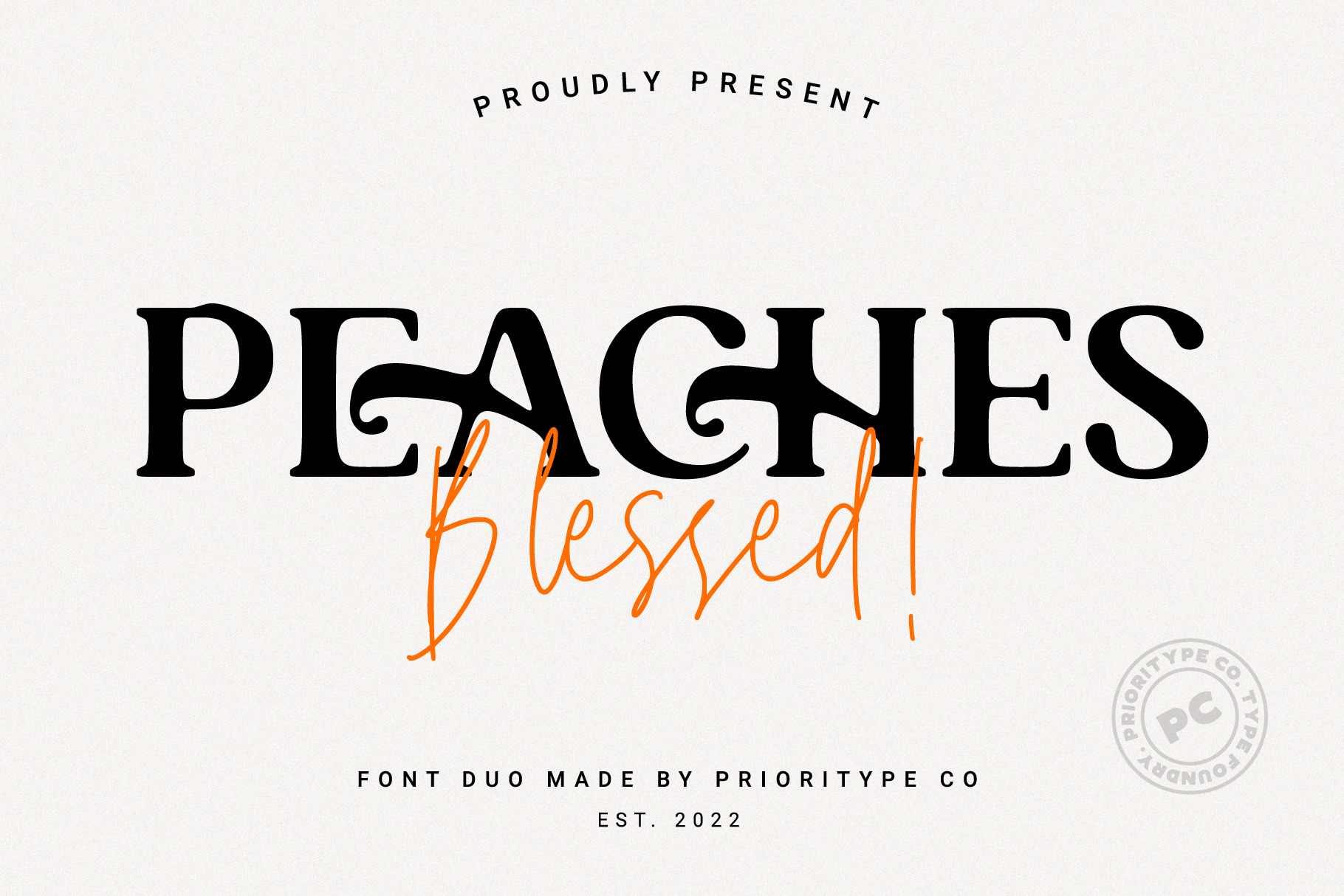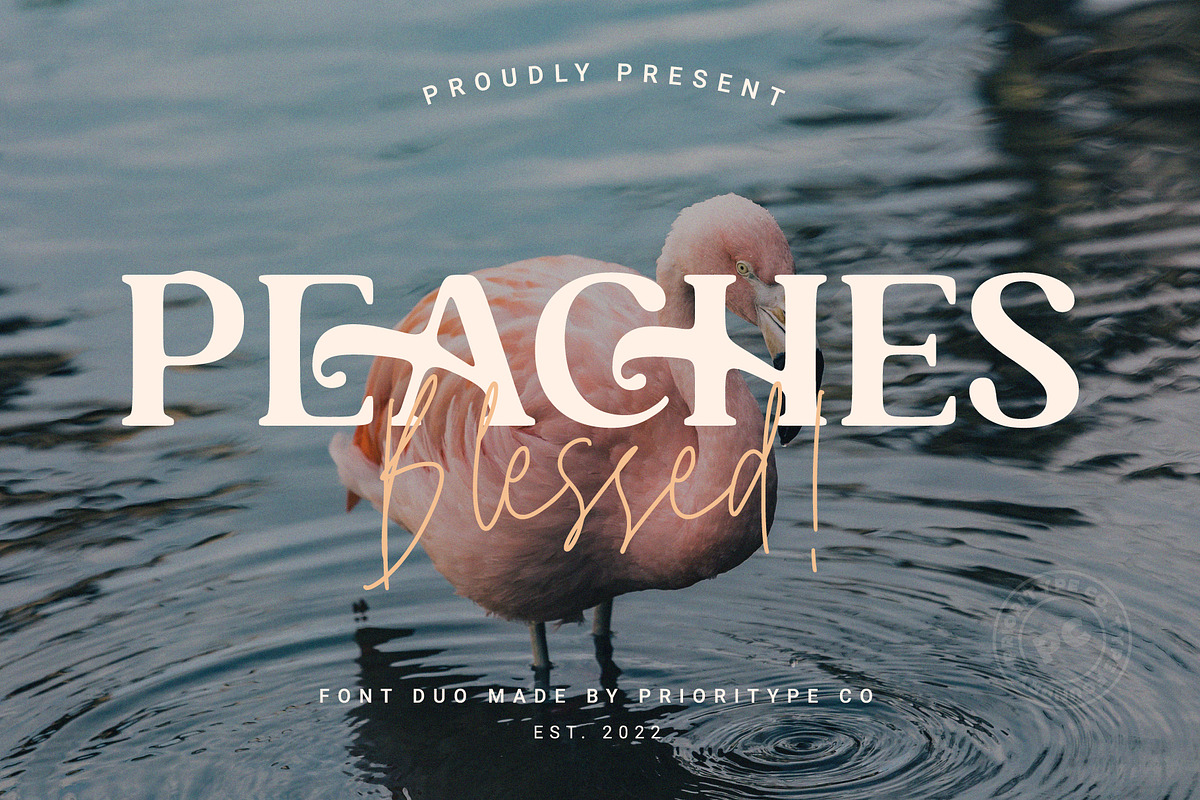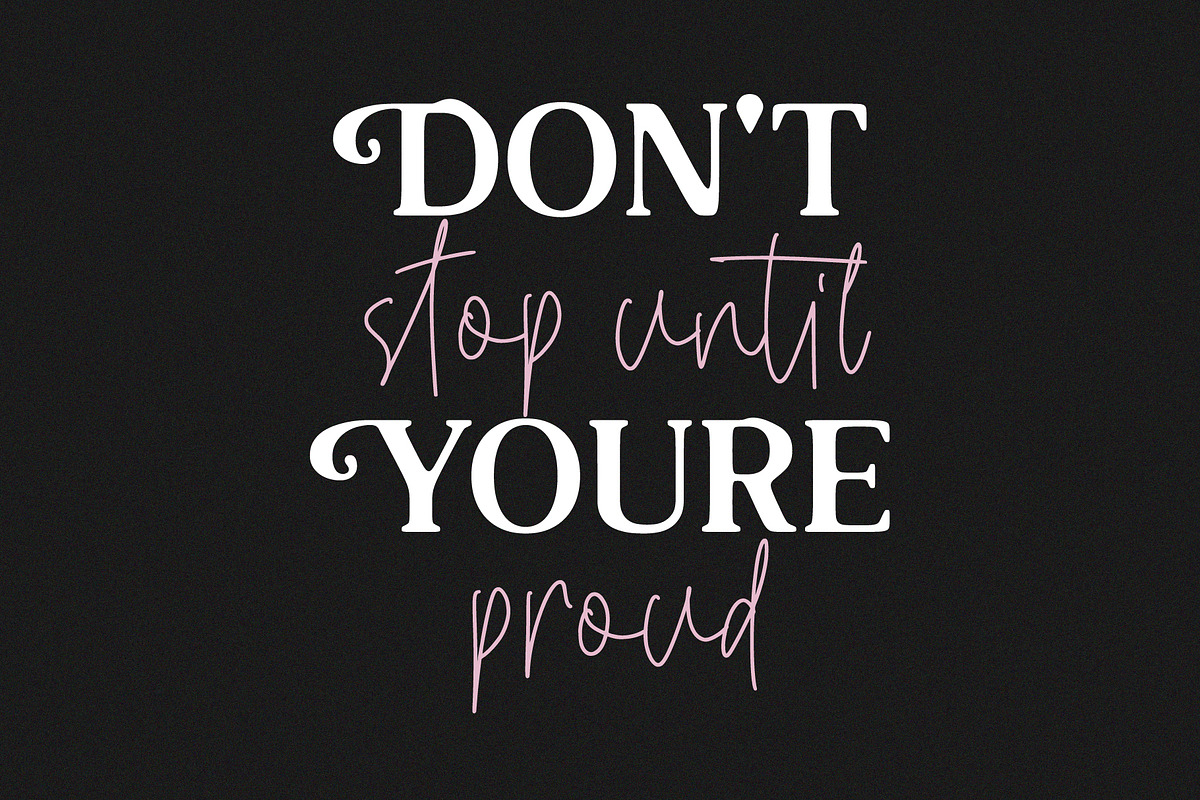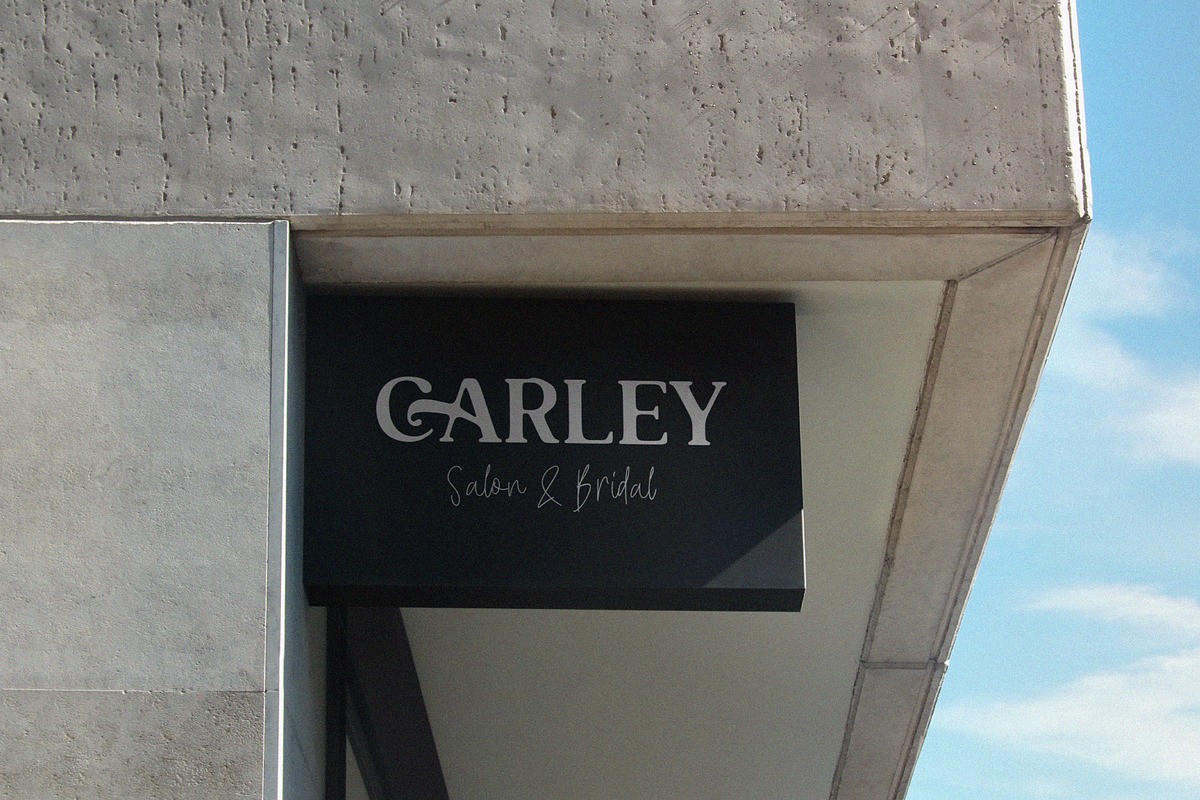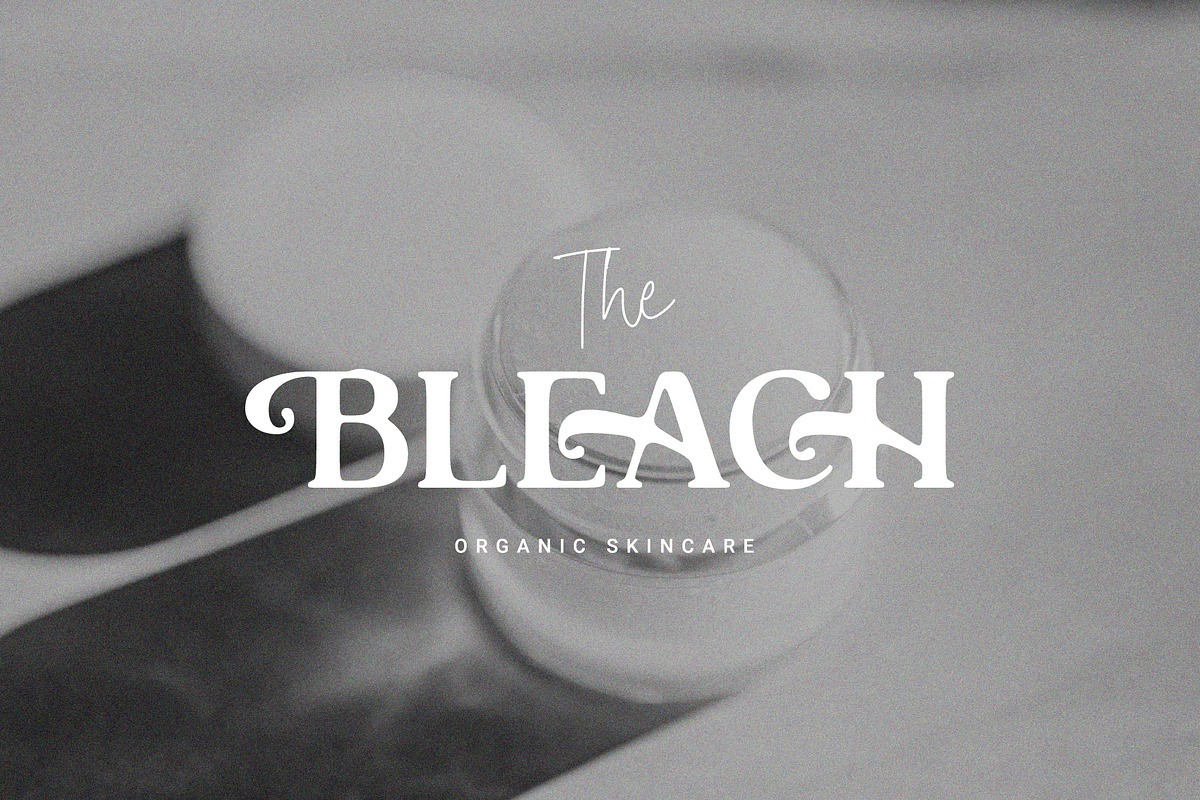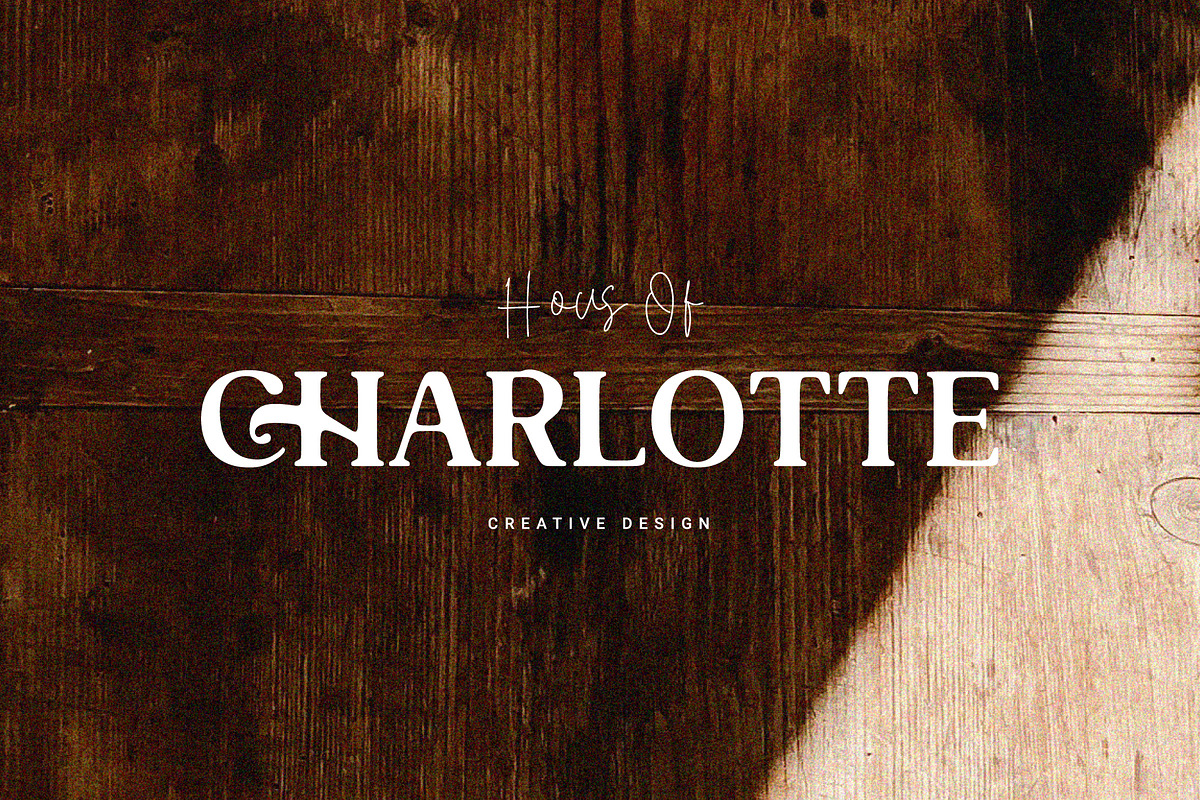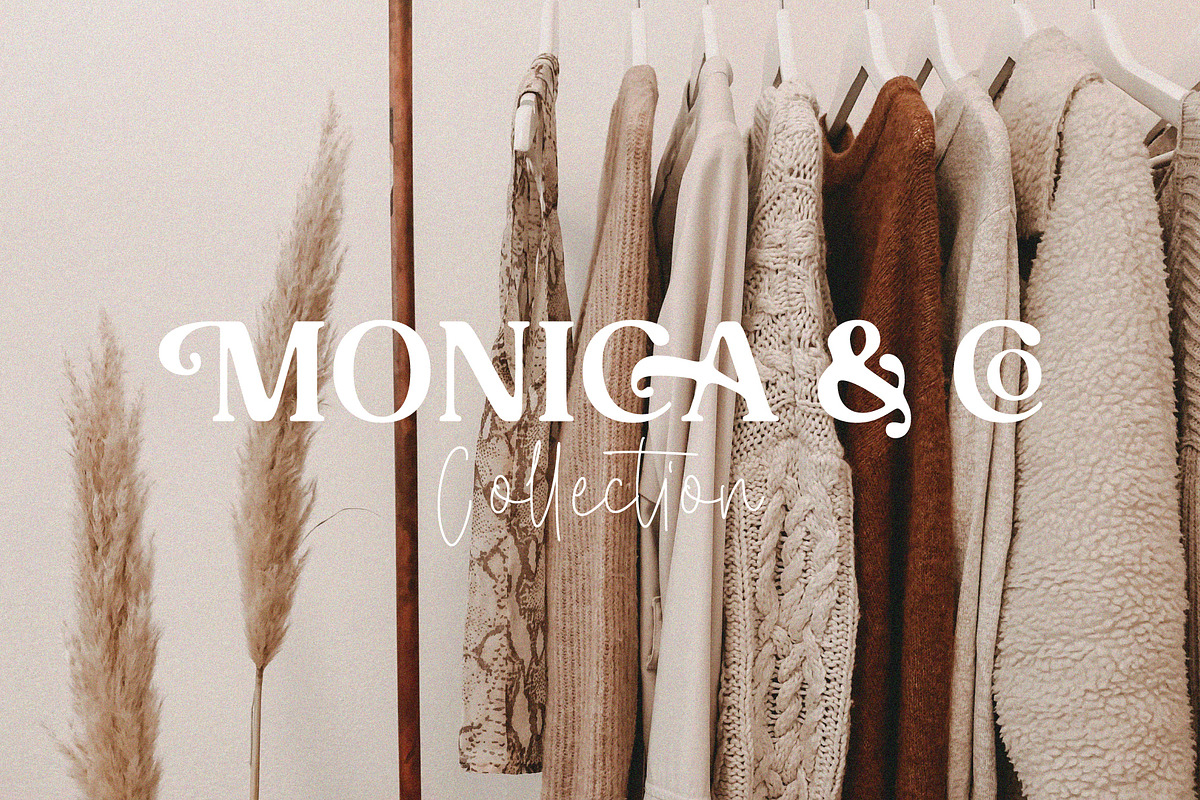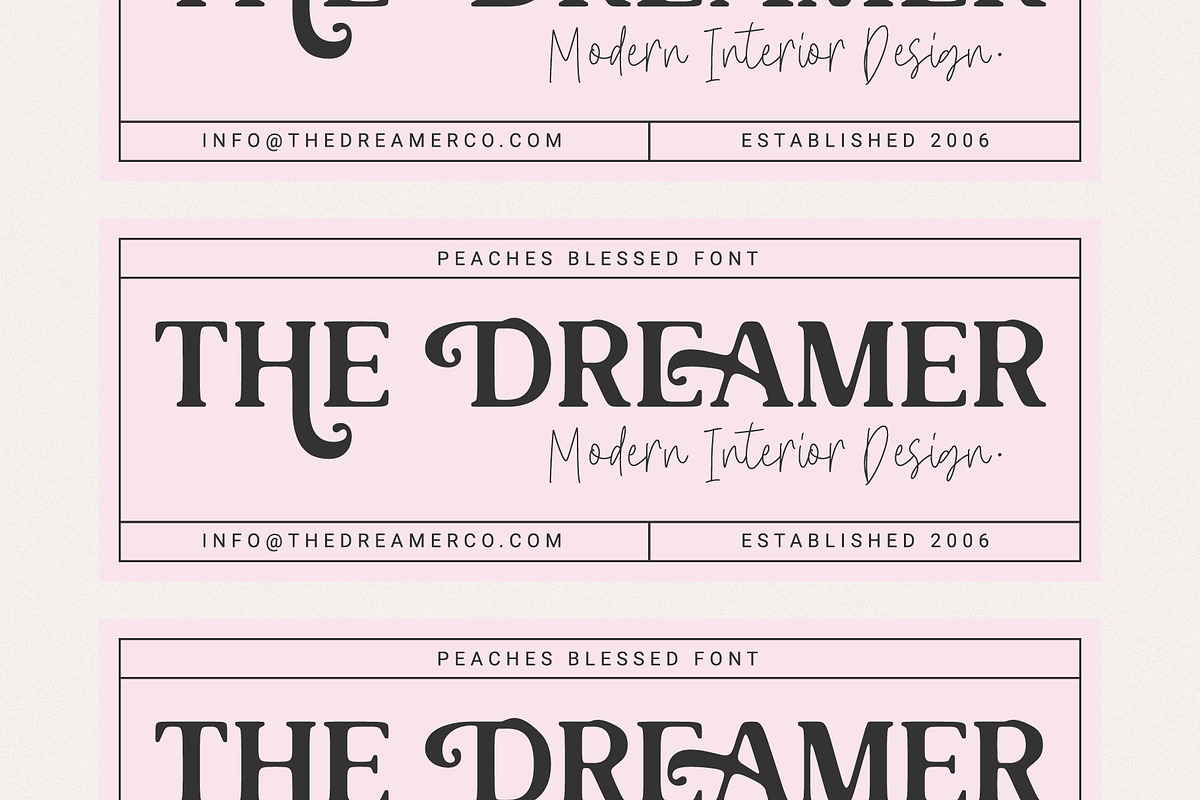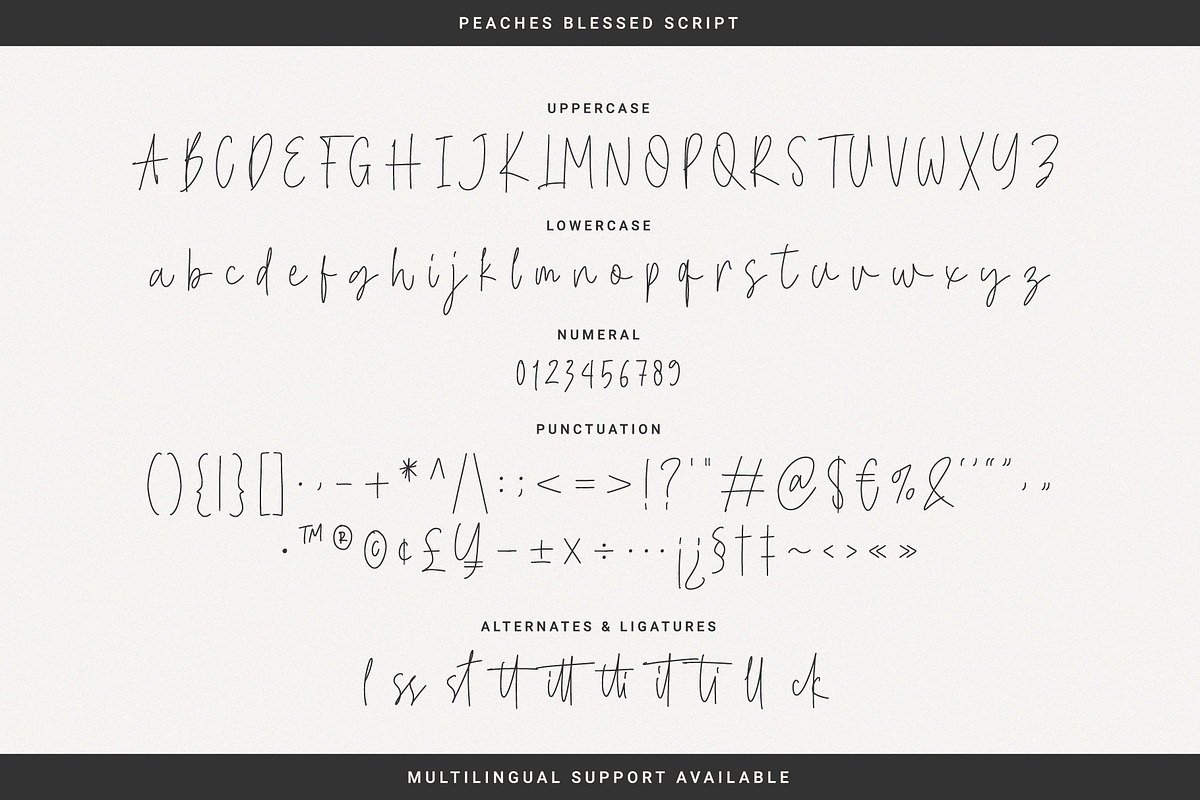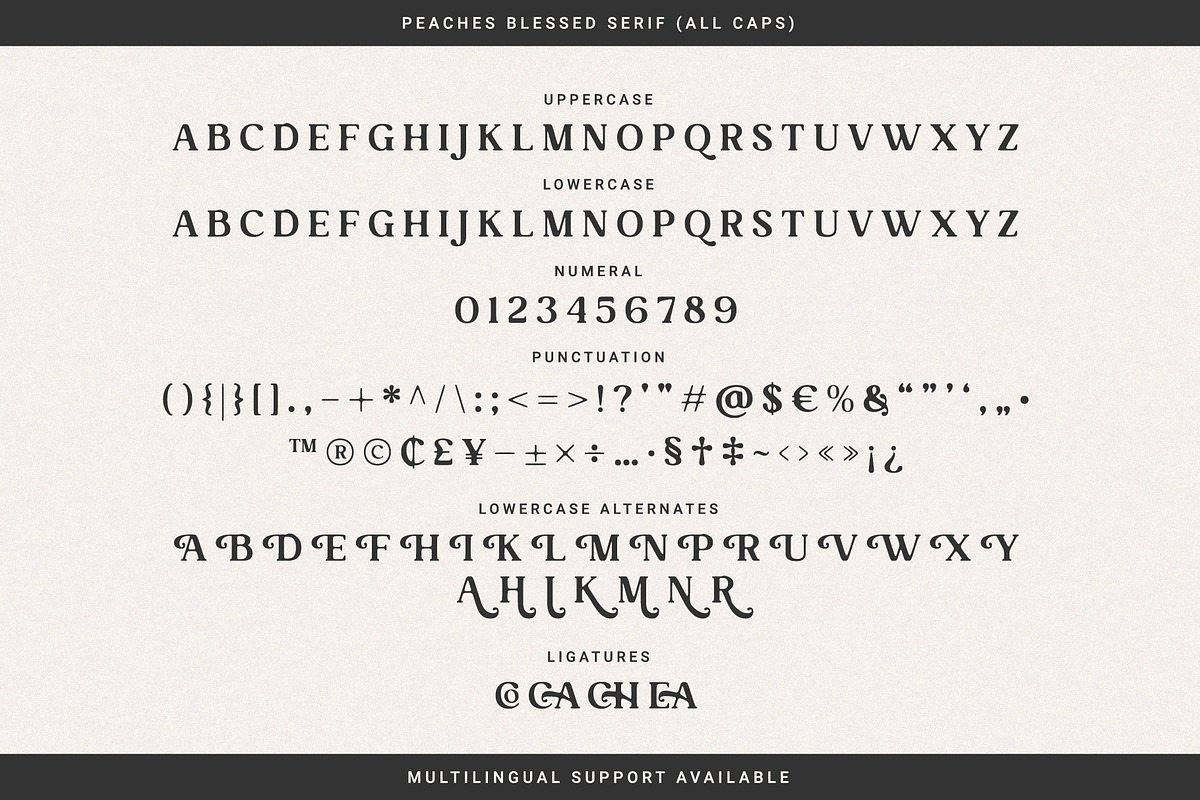
Peaches Blessed - Font Duo
Peaches blessed is a great paired font because it has organic characteristics and is luxurious to look at. With the additional characters in these two fonts, it makes your display more enjoyable. Great for branding, logos, wedding invitations, quotes and more.
- Features: Uppercase, Lowercase, Numeral, Punctuation, Multilingual Ligatures & Alternates.